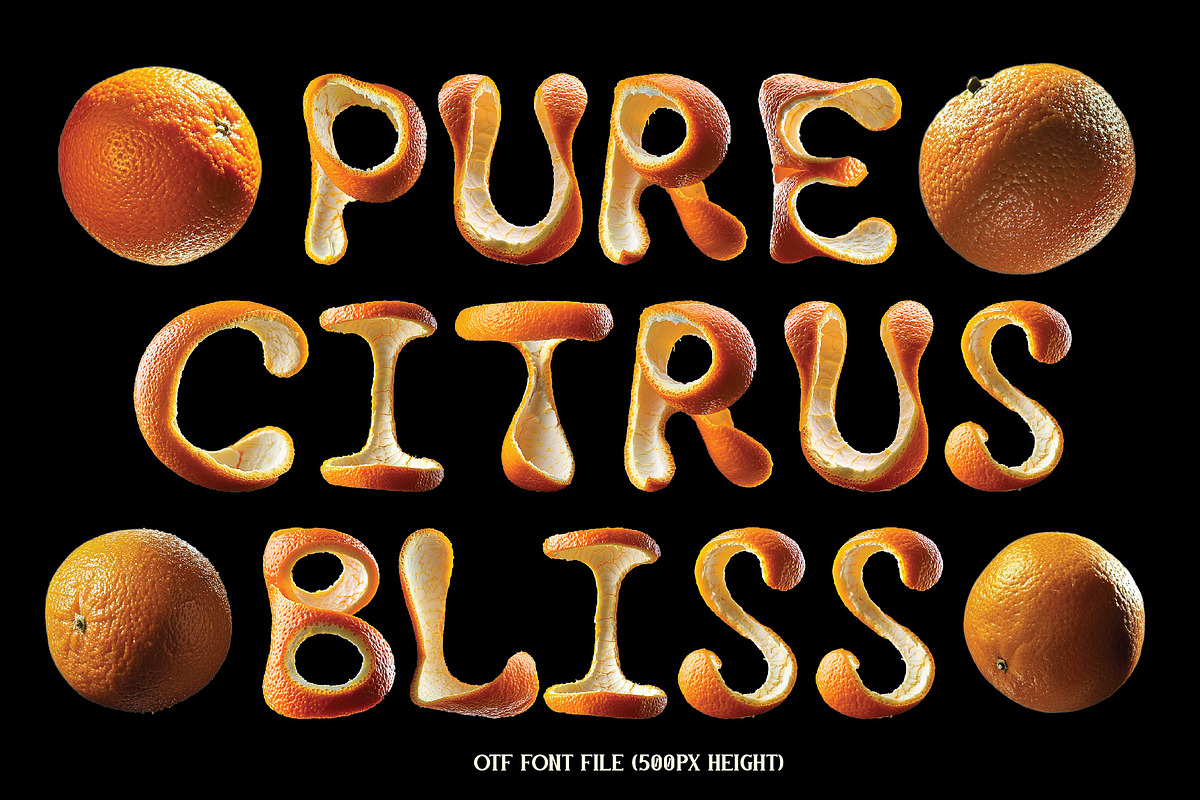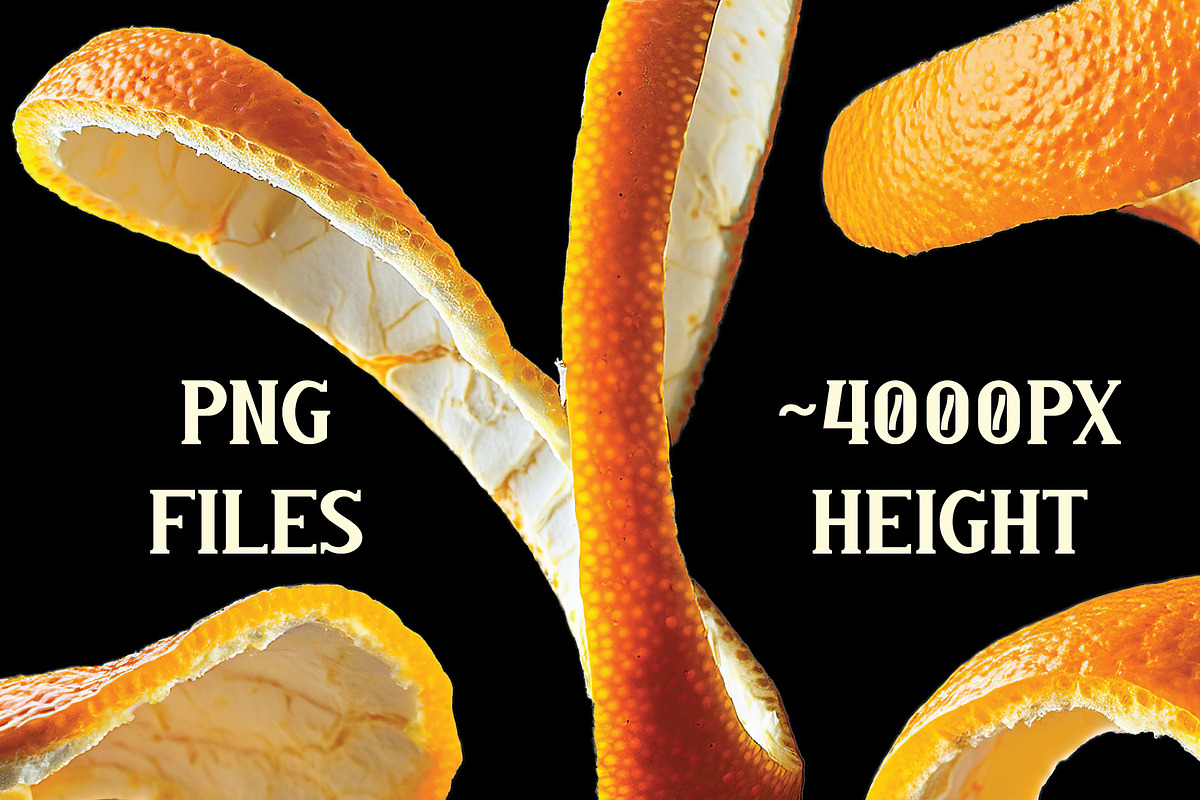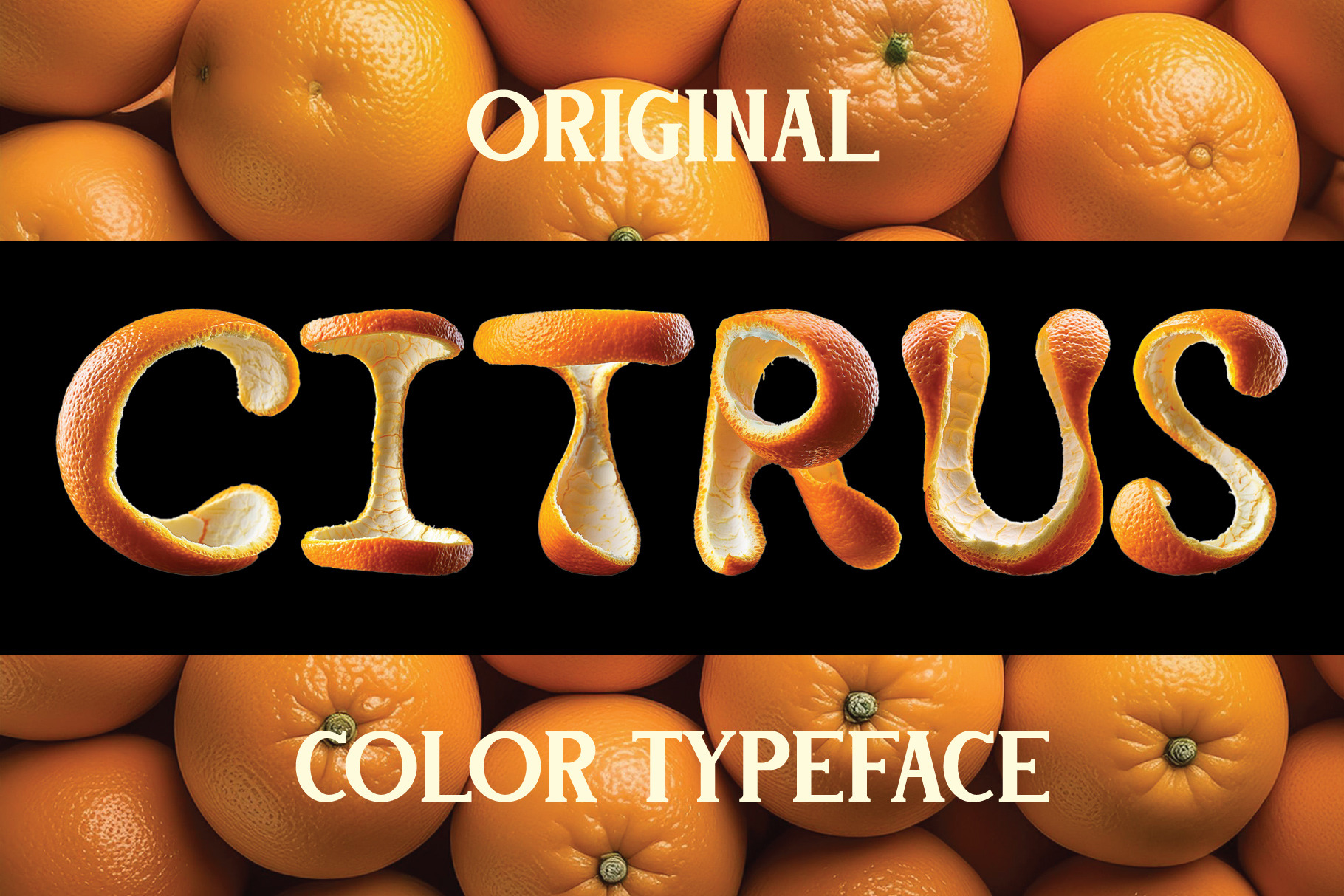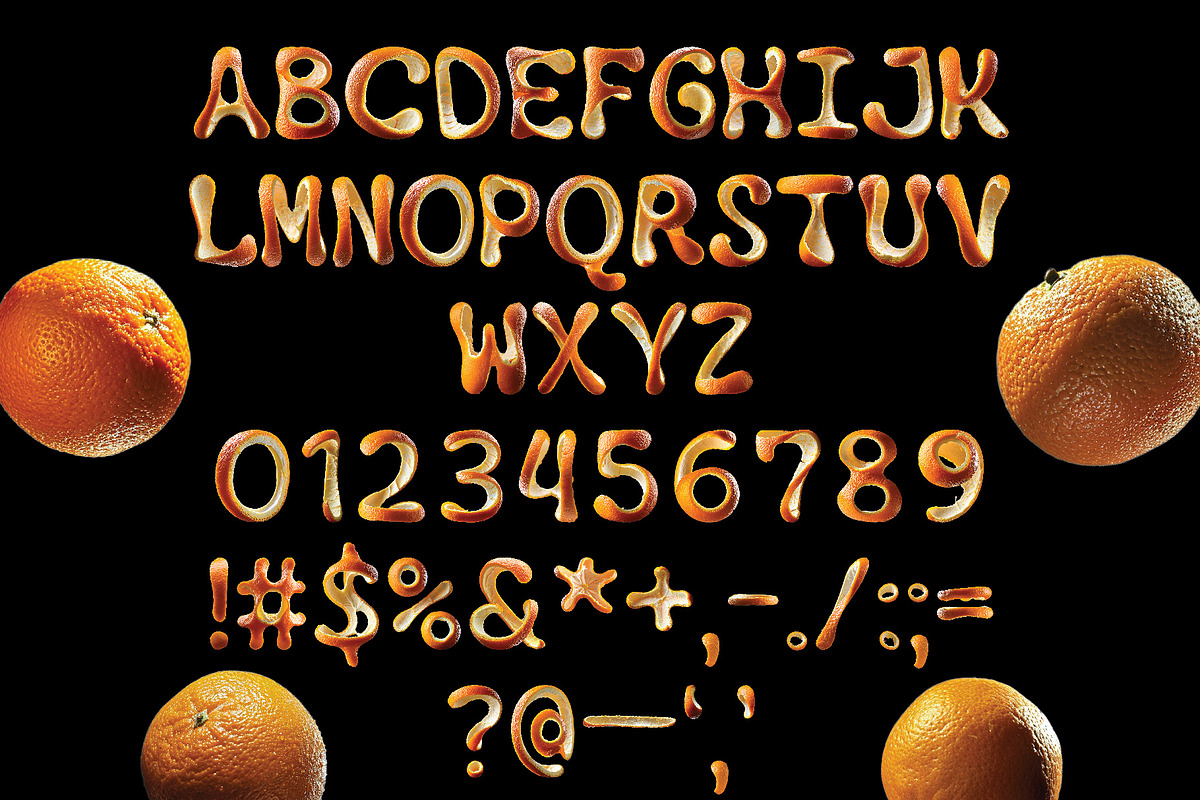
Citrus Color Font
Presenting bright color font named Citrus with letters made of orange peel. First of all, it's a color bitmap OpenType-SVG font that can be used as a usual OTF font. The resolution of an OTF file is 500 px height. An included PNG files with transparent background has about 4000 px height. Please consider that only the English language and basic punctuation are available, please check out the screenshot with all existing characters.